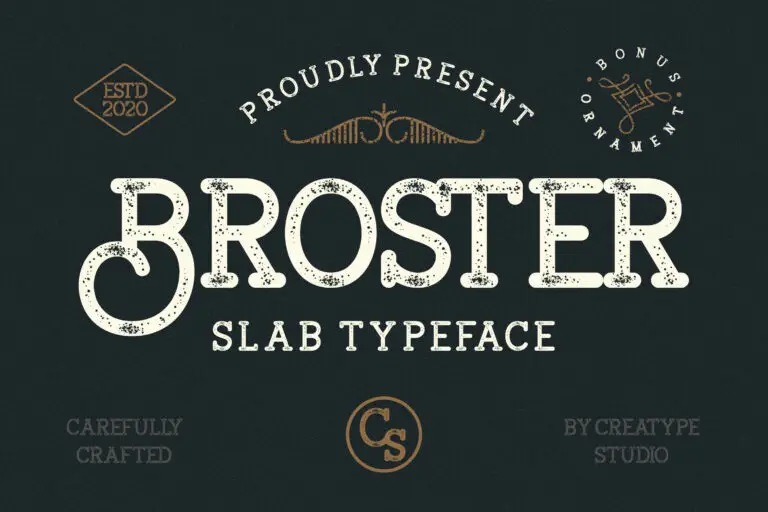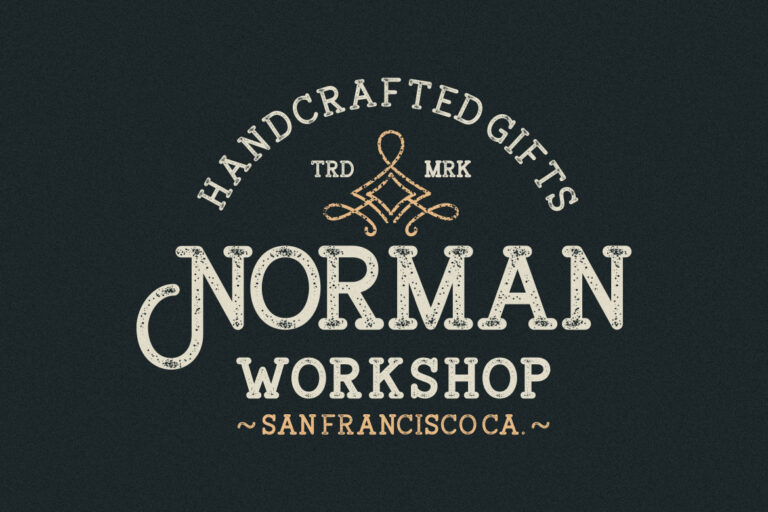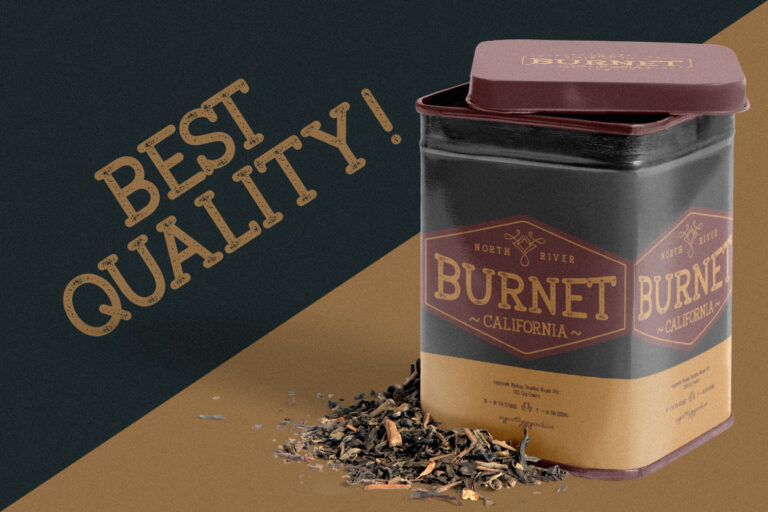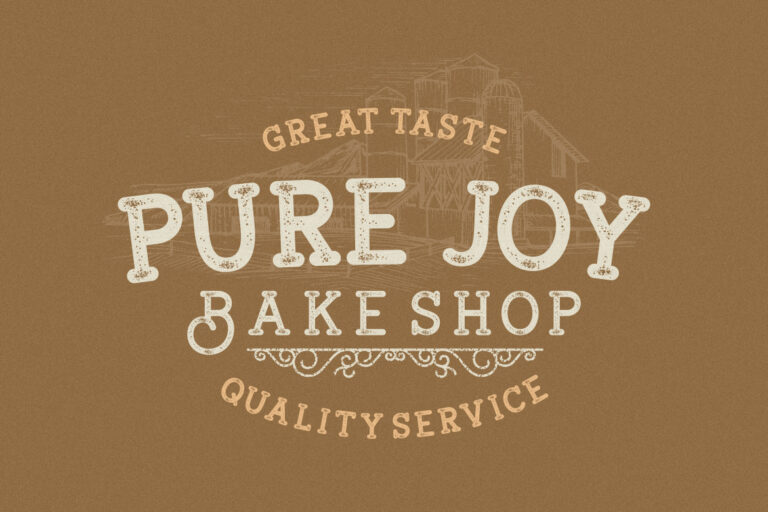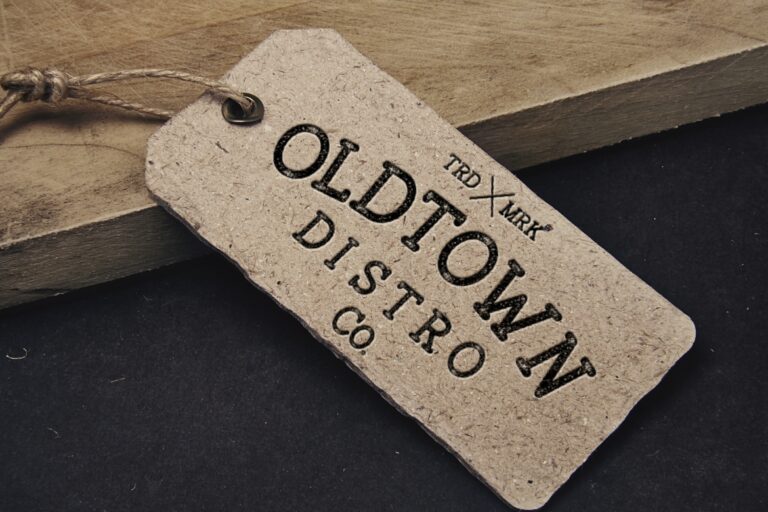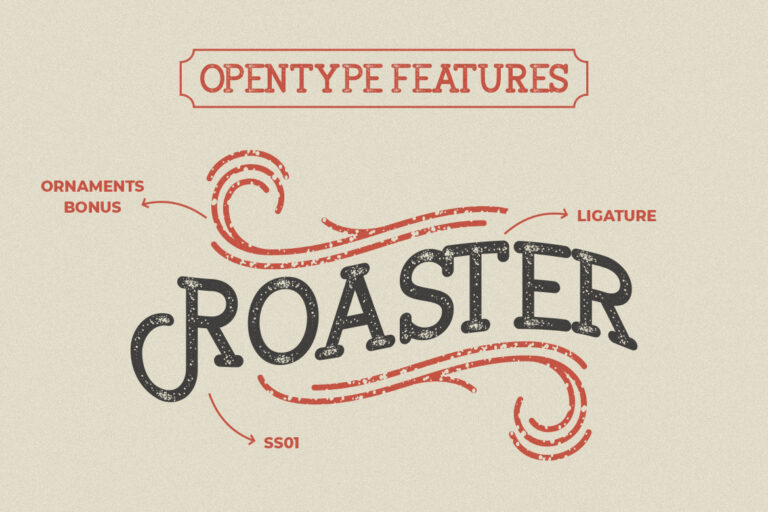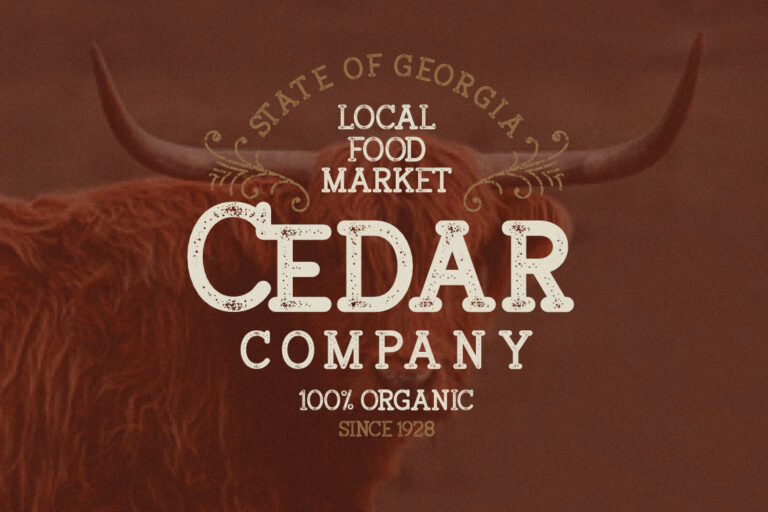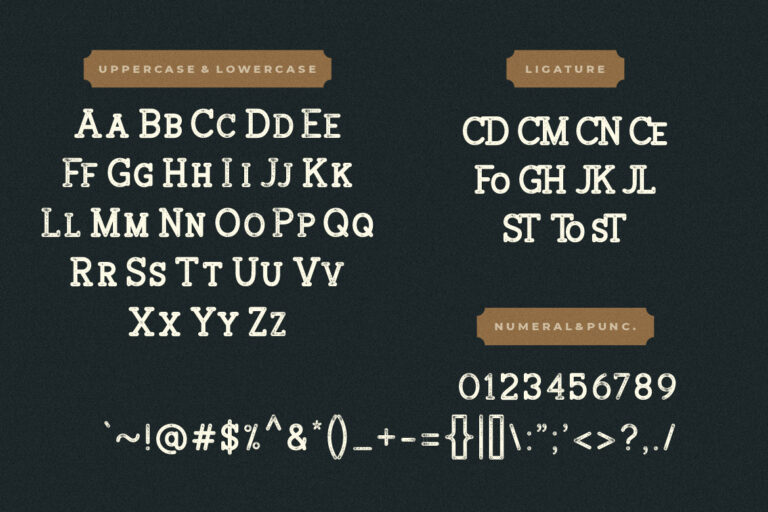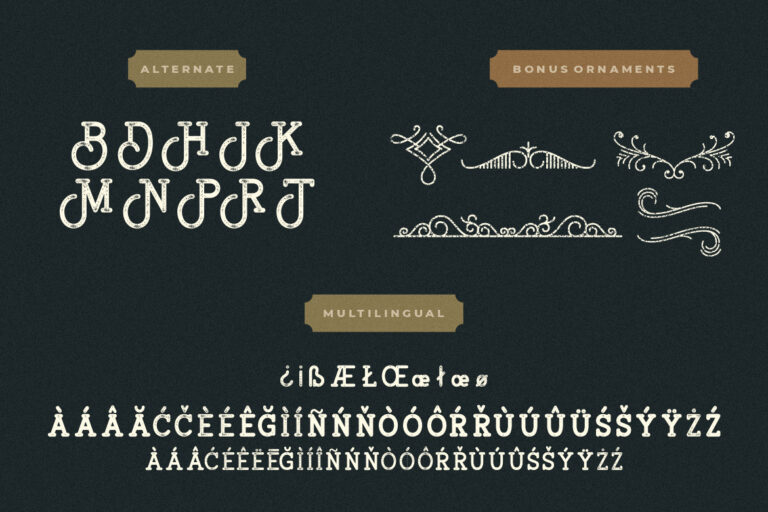
Broster Slab Typeface
Broster is a slab typeface with stamped looks and bonus ornament.
Broster would perfect for photography, watermark, social media posts, advertisements, logos & branding, invitation, product designs, label, stationery, wedding designs, product packaging, special events or anything that need handwriting taste.
- Bonus ornament illustrations